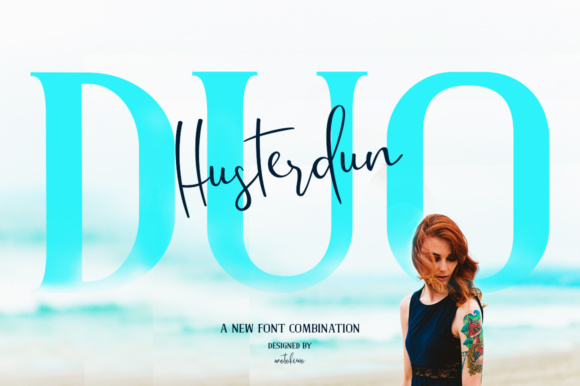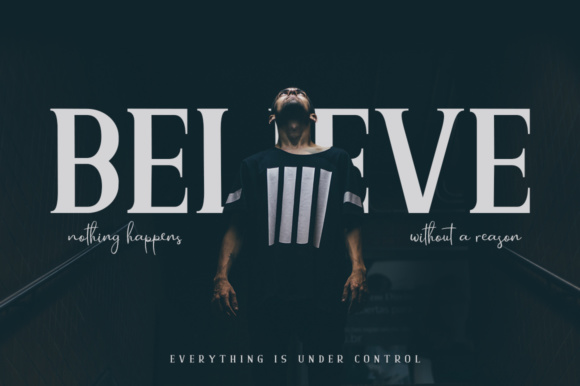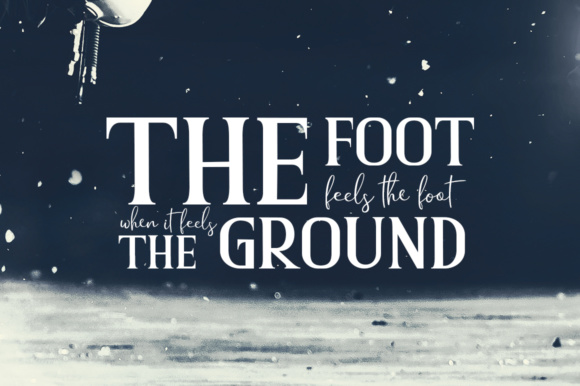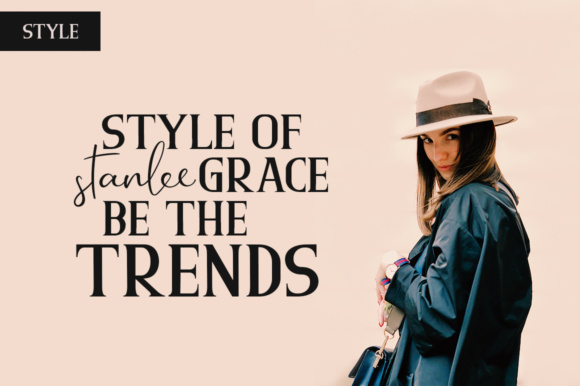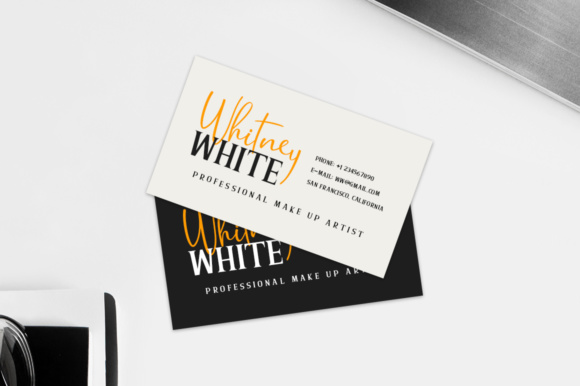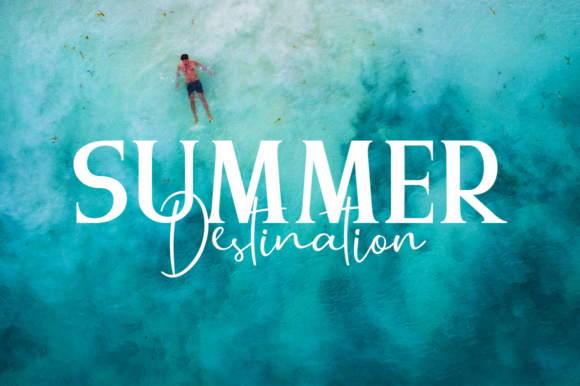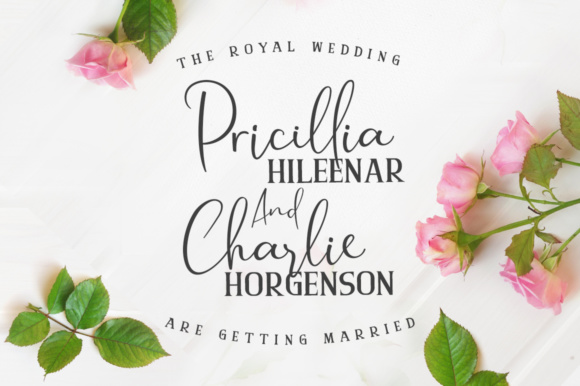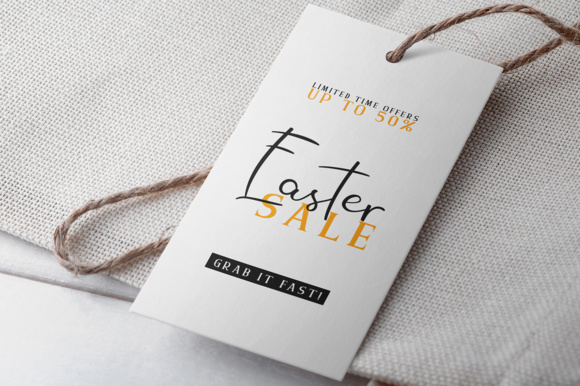
Husterdun Font
About Husterdun Font
Husterdun is a modern font duo that is perfect for expressing elegance and style. This font is comprised of a serif and script font duo, and is an easy way to add some sophistication to your designs.